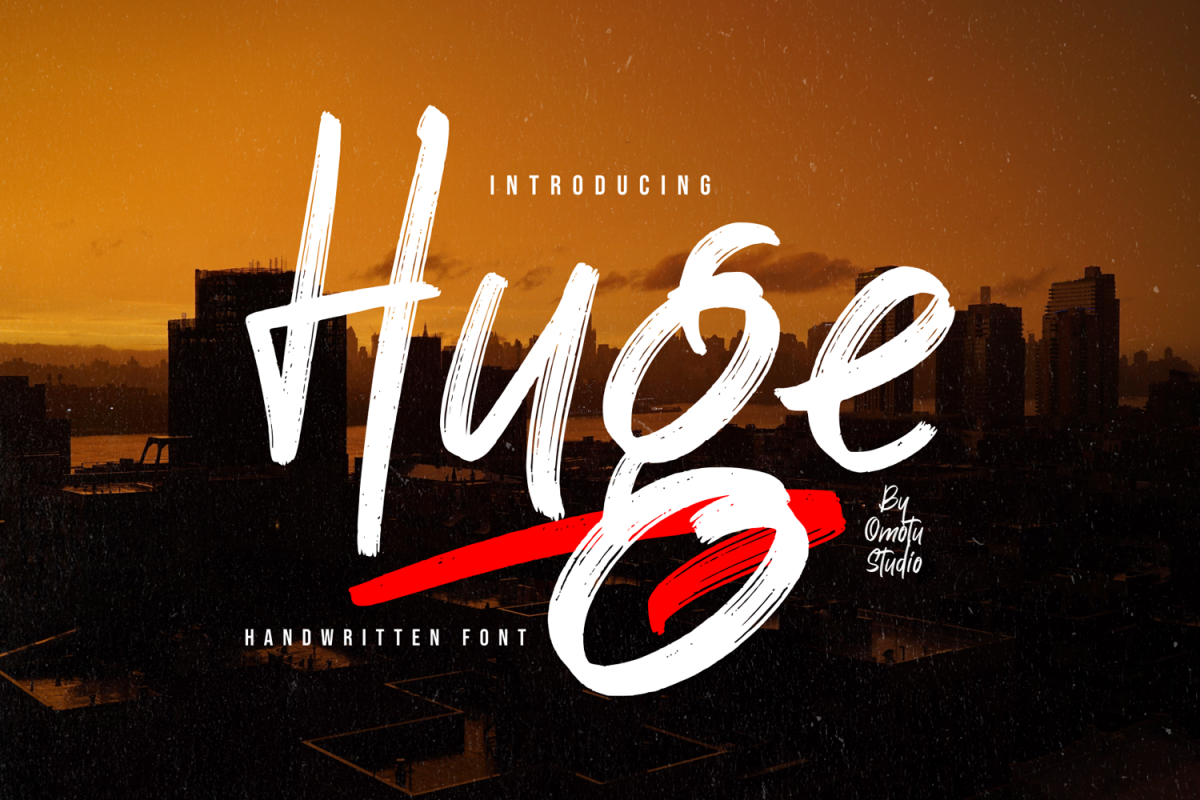
Huge
Huge! Huge is perfect for branding projects, homeware designs, flyers, posters, product packaging - or simply as a stylish text overlay to any background image.
1. Uppercase and lowercase characters
2. Supports international languages
3. Numerals & punctuations, stylistic alternates, and ligatures